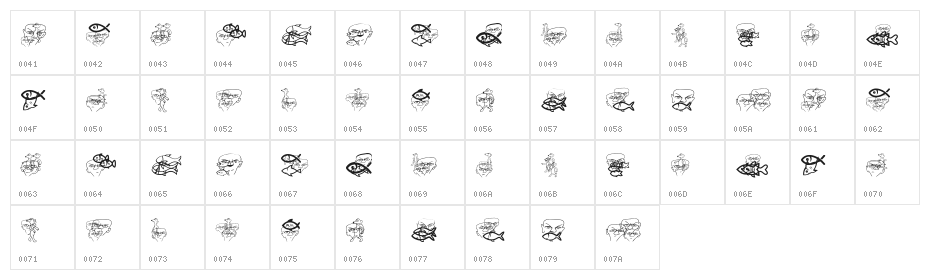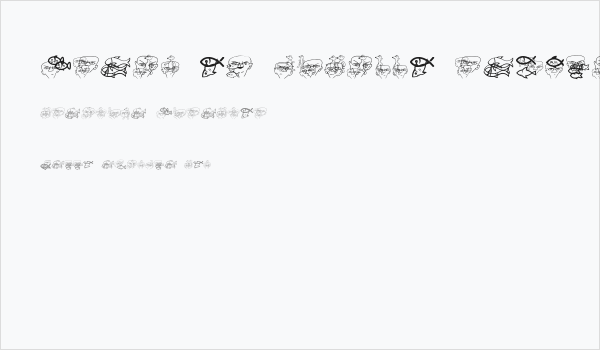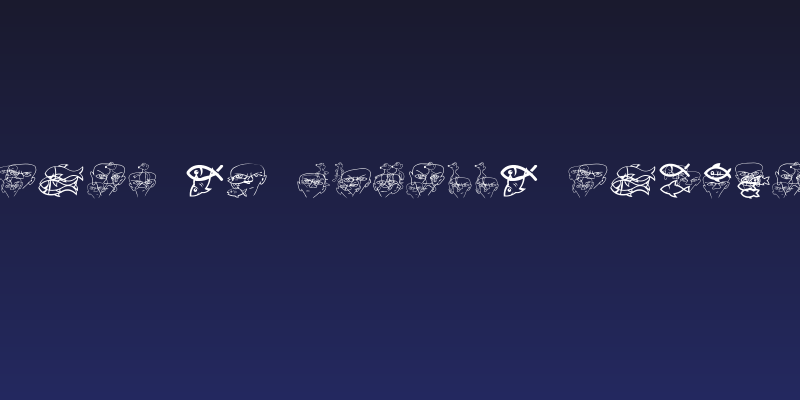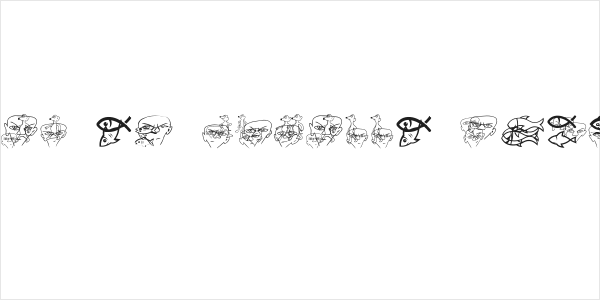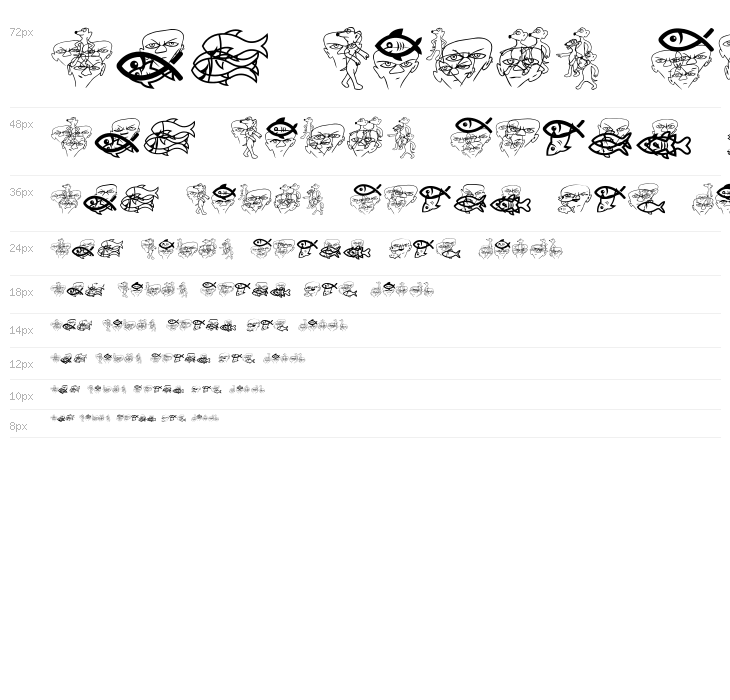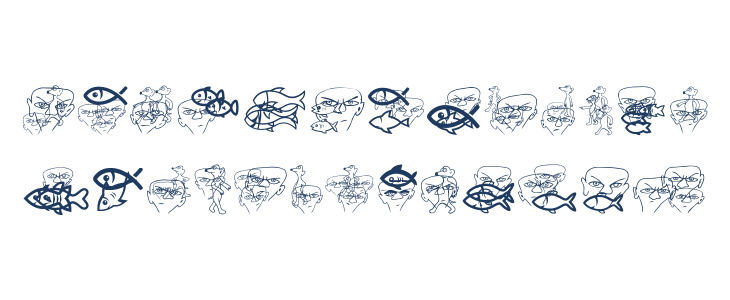
Dream of Picasso Regular Font
Dream of Picasso Regular Description
This is a highly decorative and artistic font that features abstract, Picasso-inspired illustrations instead of traditional alphanumeric characters. Each character is represented by a unique, intricate drawing that resembles cubist art, with bold lines and creative shapes. The font captures a whimsical and avant-garde style, making it more of an artistic expression than a conventional typeface. The characters are detailed and complex, offering a visual experience that is both engaging and thought-provoking. This font is not suitable for standard text but serves as a creative tool for artistic projects.
| Overall Style | Avant-garde, Artistic |
| Use Case | Artistic displays, Creative designs |
| Proposed Projects | Ideal for art projects, creative posters, unique branding, and decorative purposes where a traditional font is not required. |